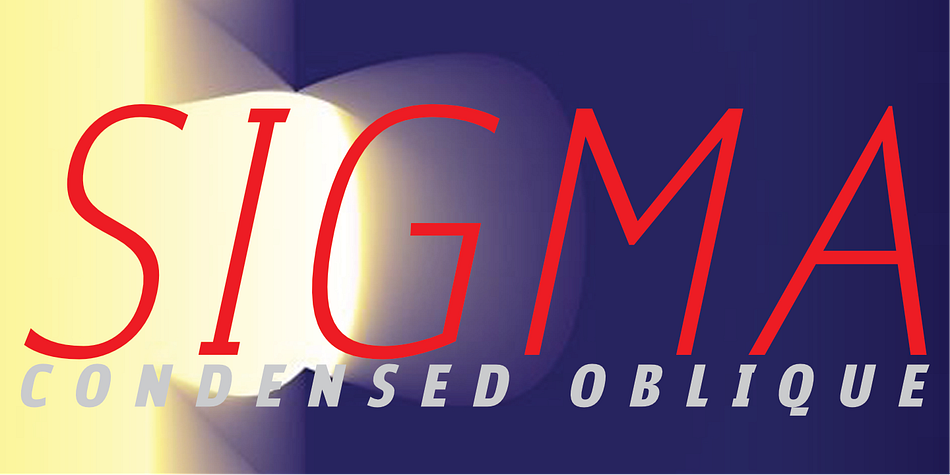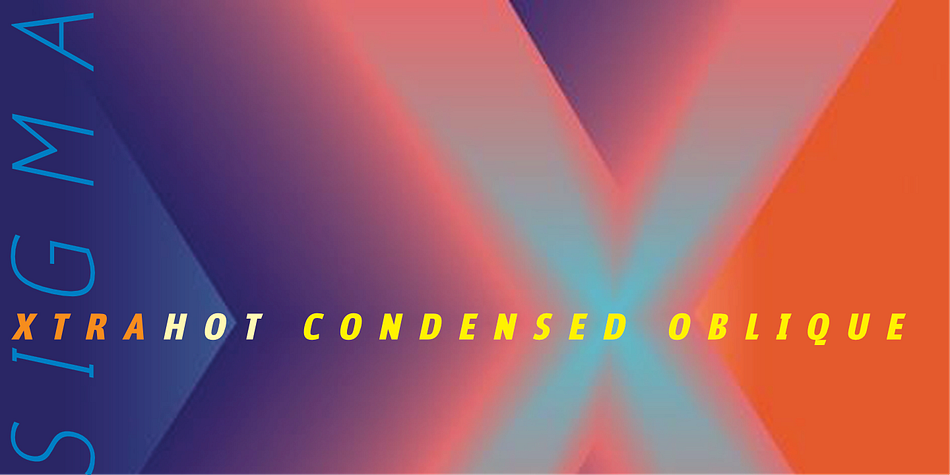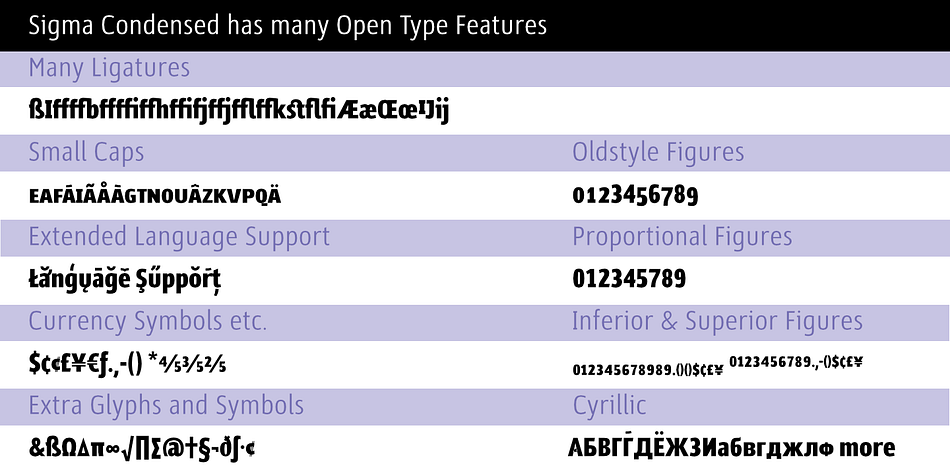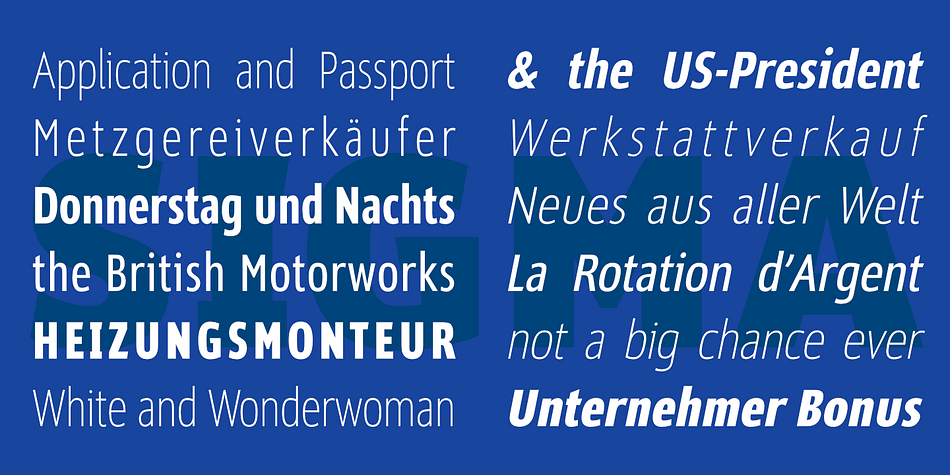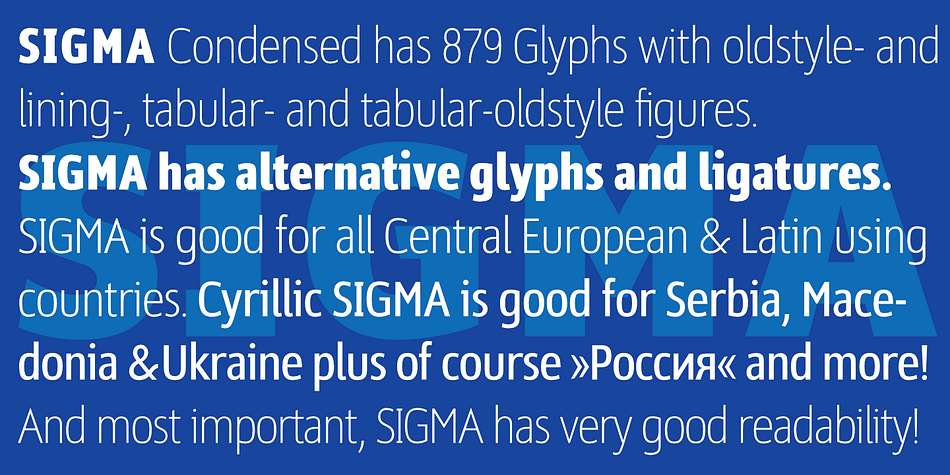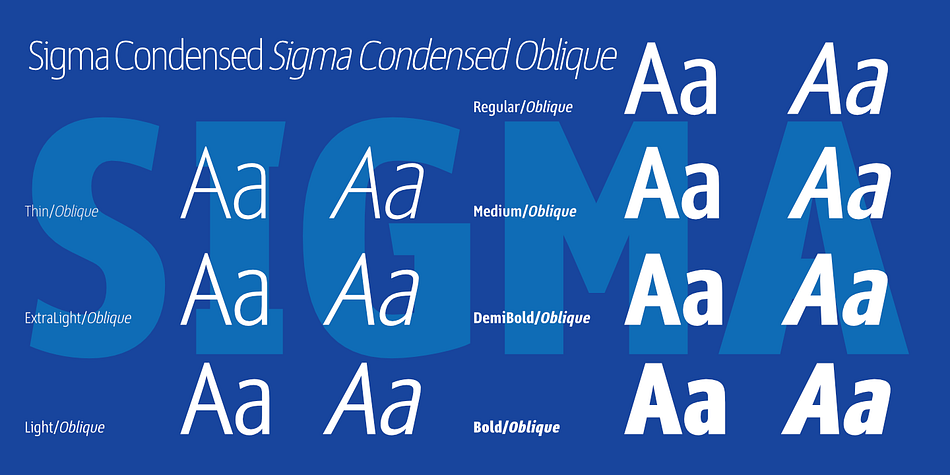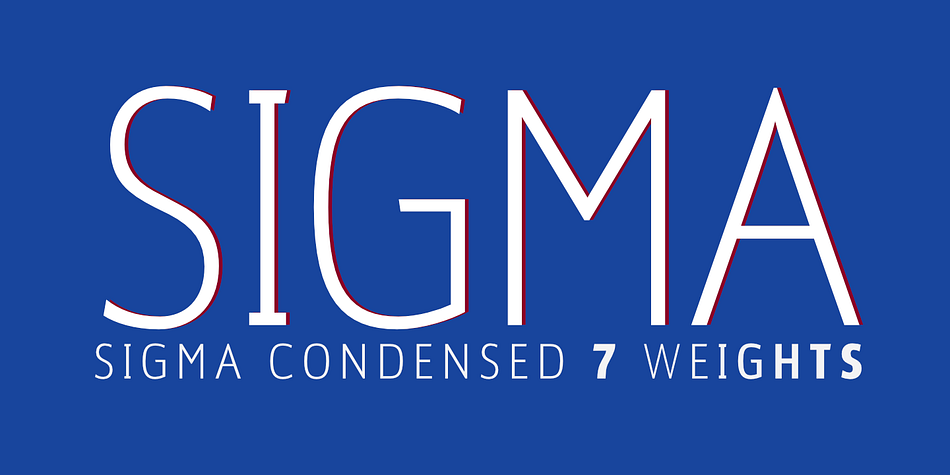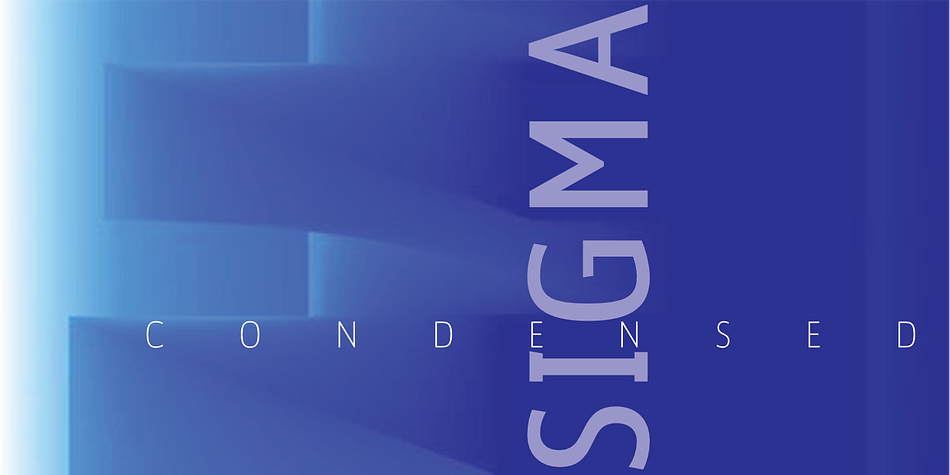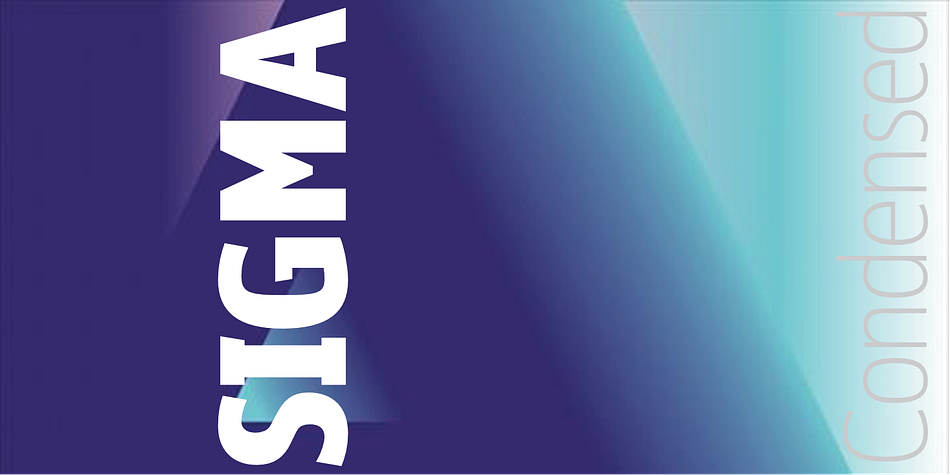
Designed by Gert Wiescher, Sigma Condensed is a sans serif font family. This typeface has sixteen styles and was published by Wiescher-Design.
This is the condensed version of »SIGMA« for all those who need to pack a lot of copy in tight spaces. Sigma-Condensed has very open inner spaces, despite its compact forms, which gives it very good readability.
»SIGMA« is the name for the Greek voiceless »S«. It is also called the »Lunar Sigma« in Hellenistic times the letter was simplified to »C«. I thought SIGMA was a nice name for my new, very readable and friendly Sans typeface.
»SIGMA« has that classical Sans beauty with friendly touches that make it unique. You will love this font. It is a great everyday workhorse with seven weights from Thin to Bold and all the necessary weights in between. Great for body copy and headlines!
With 875 Glyphs it is a truly European font designed for all Central European and Latin using countries. »SIGMA« has a set of Cyrillic that is – besides Russia – also good for Serbia, Macedonia and Ukraine. It has oldstyle- and lining-, tabular- and tabular-oldstyle-figures, many ligatures.
»SIGMA« comes in Normal and Oblique, I made it Oblique instead of Italic which would have been too playful for this friendly font. Enjoy!